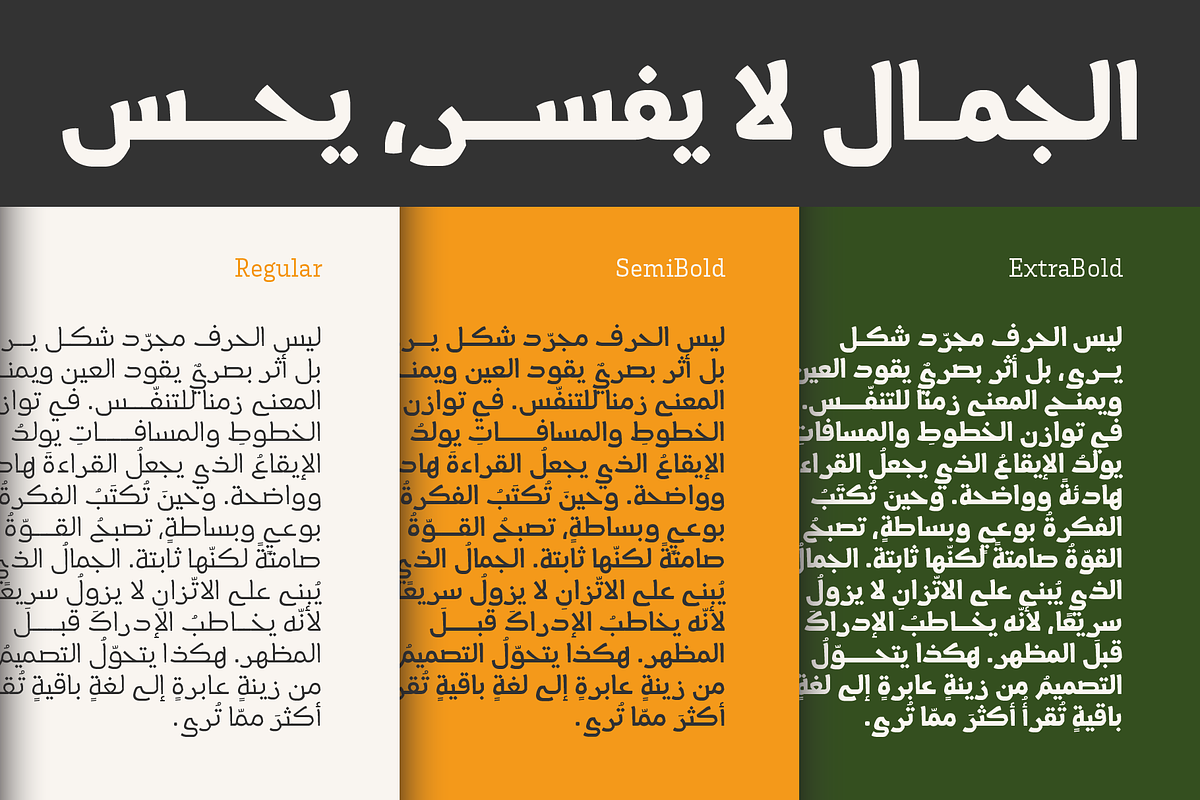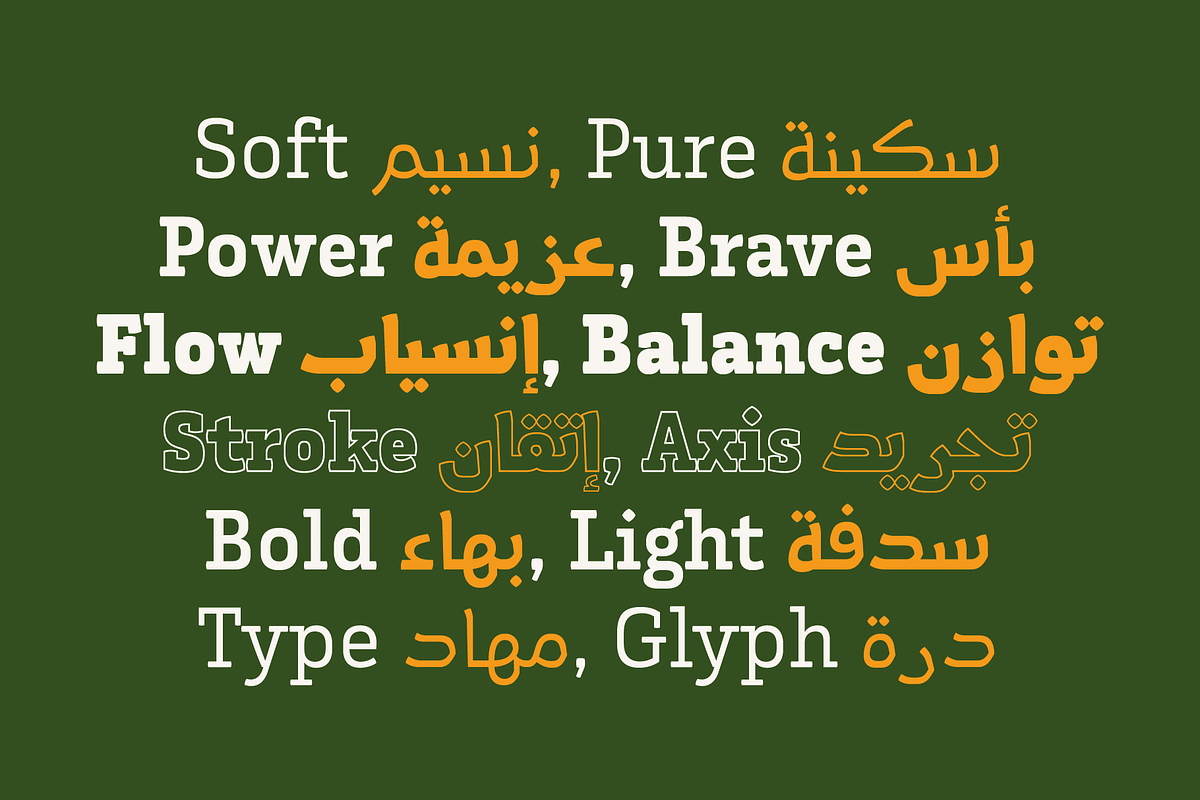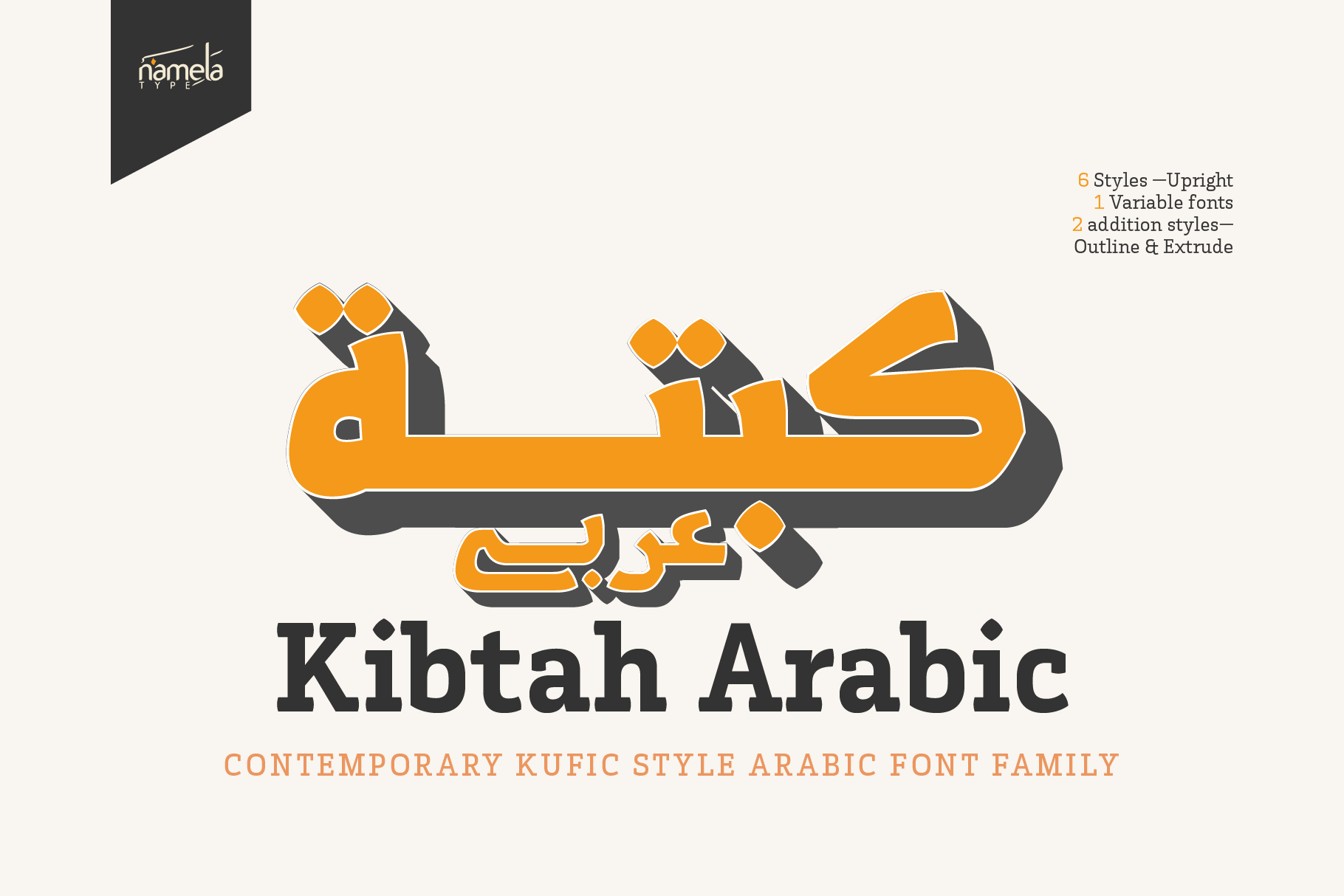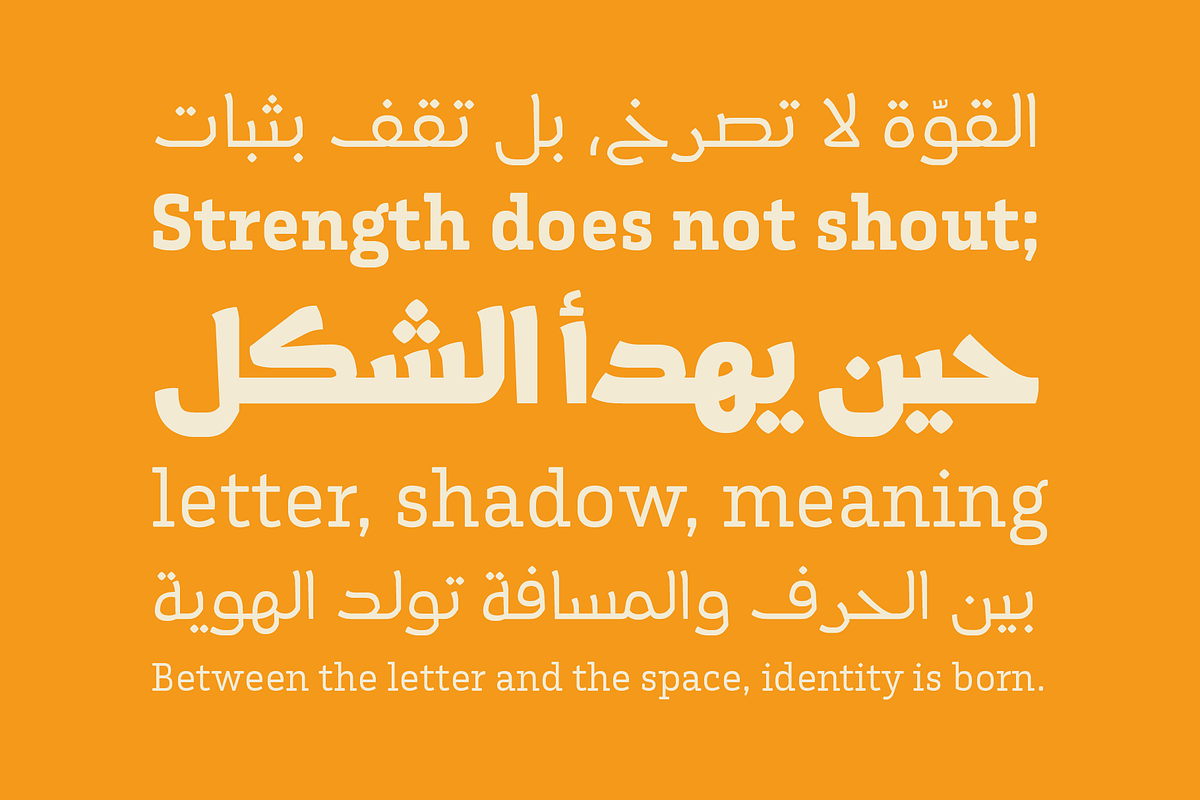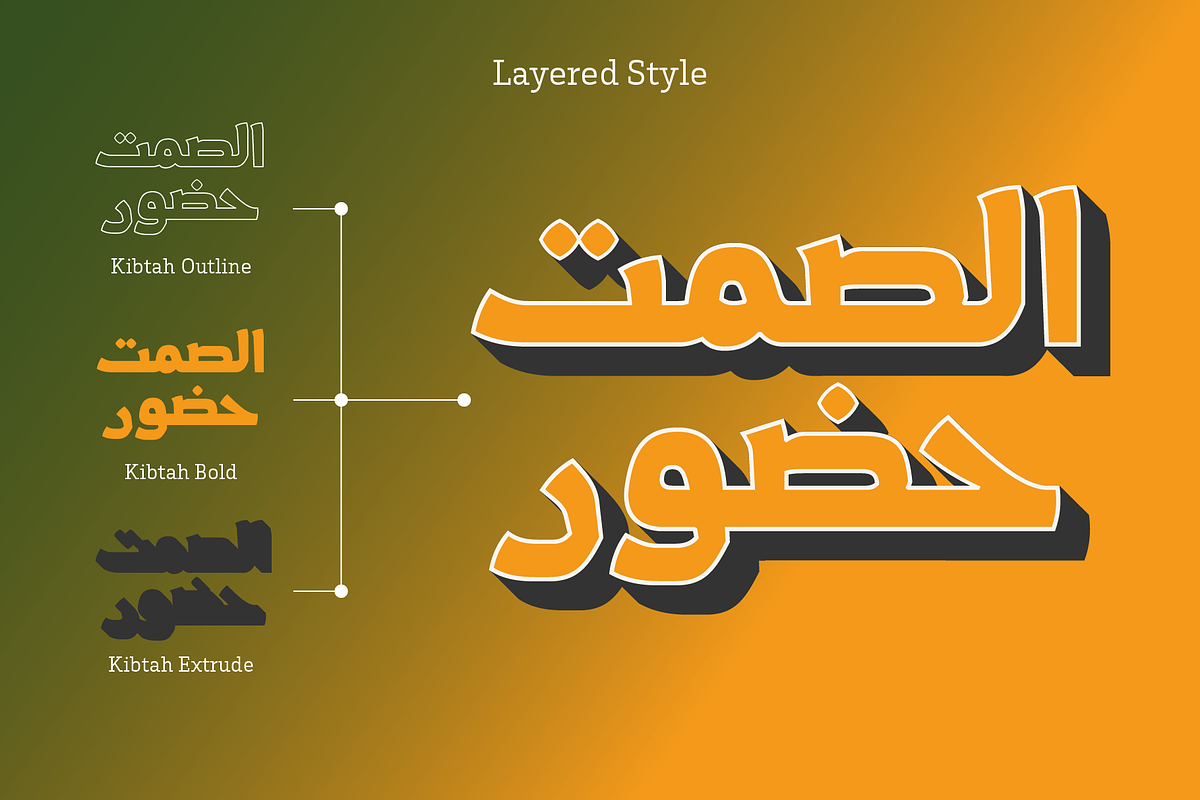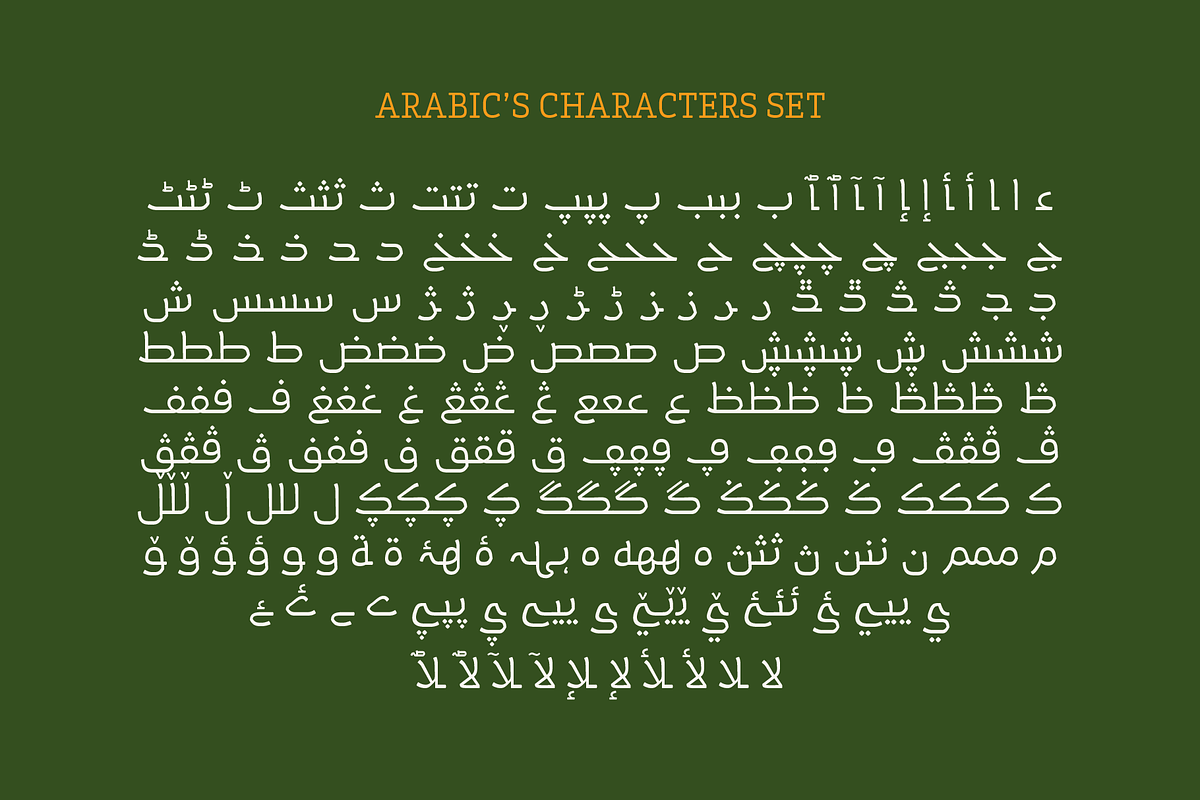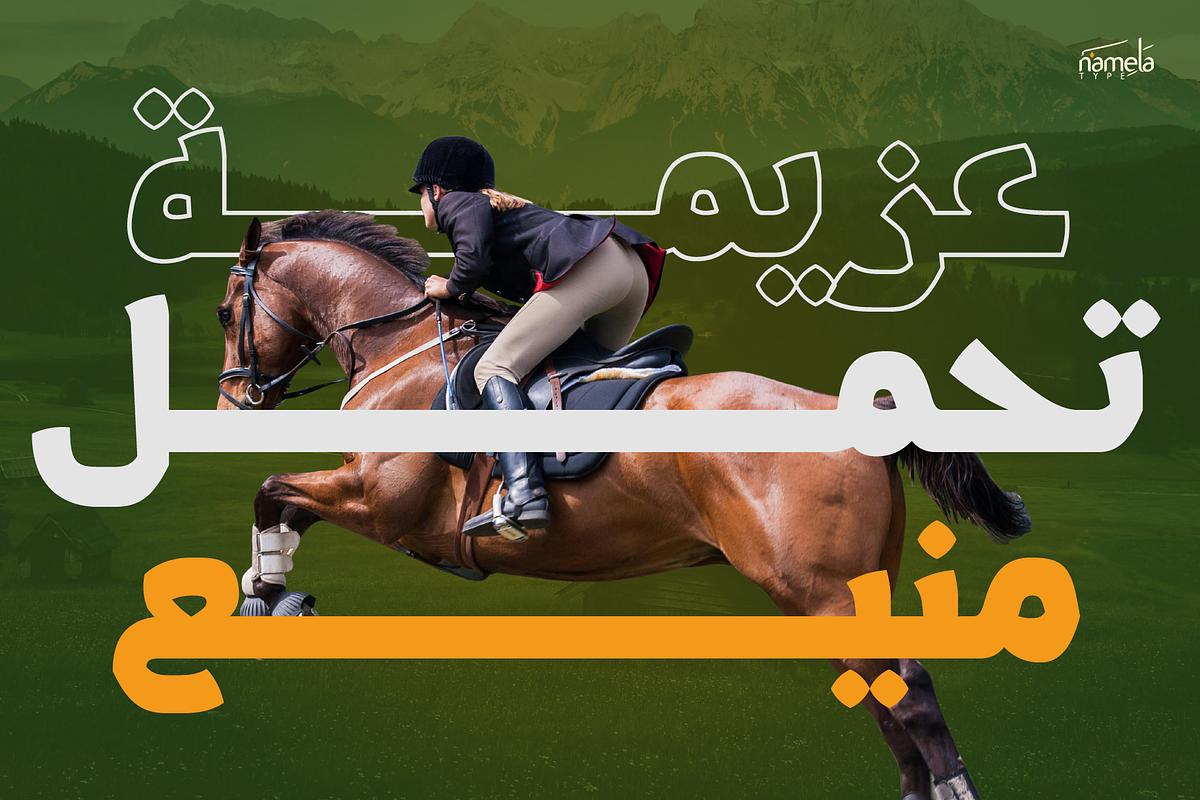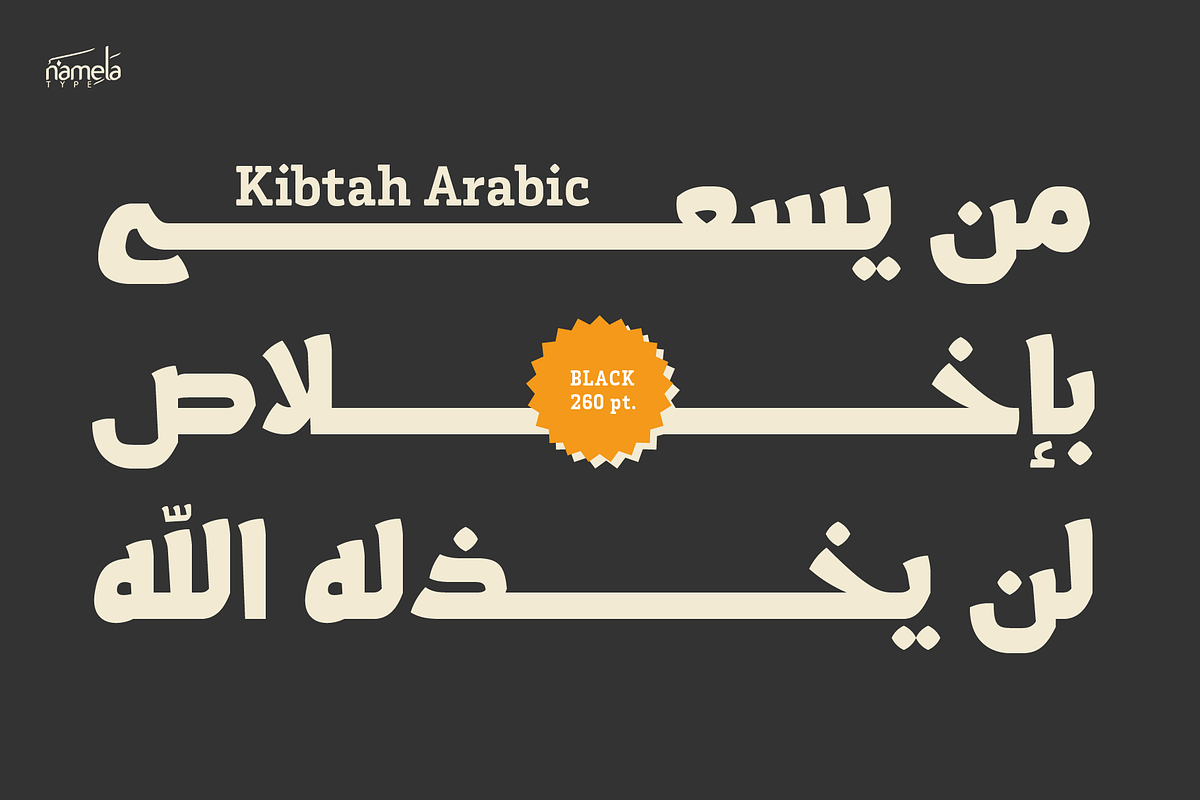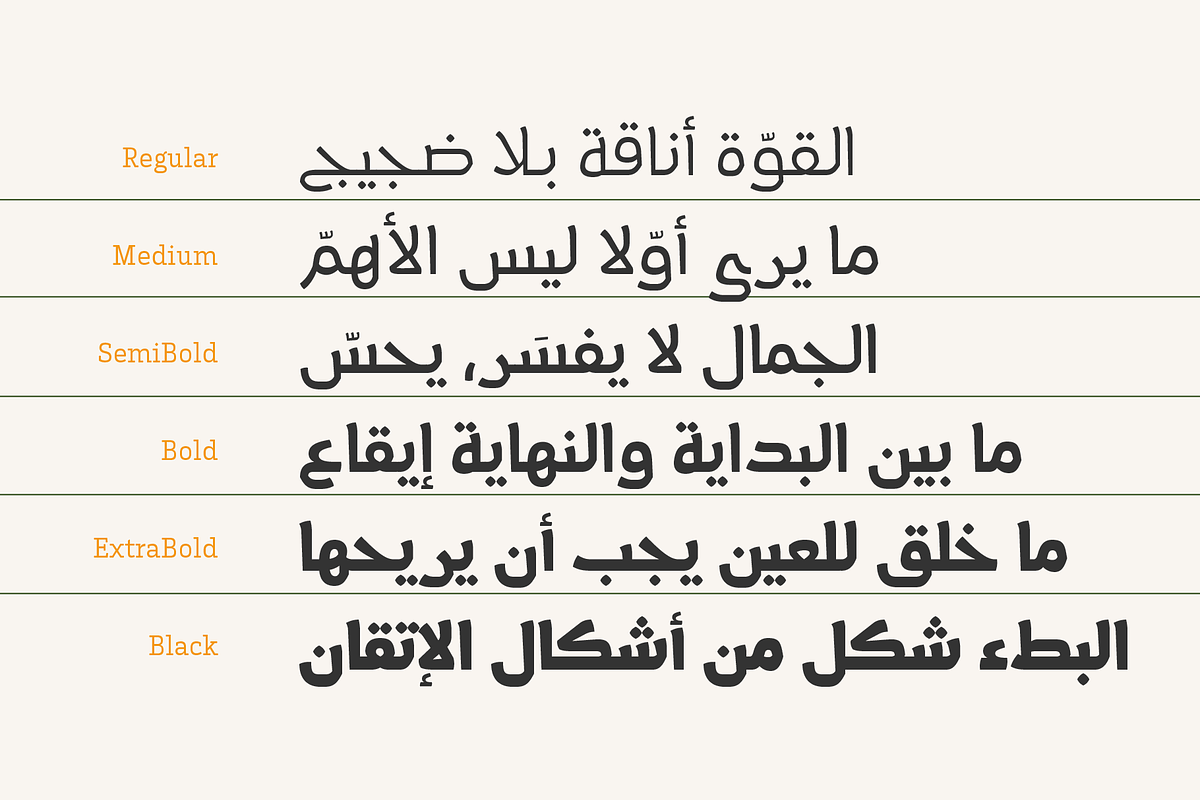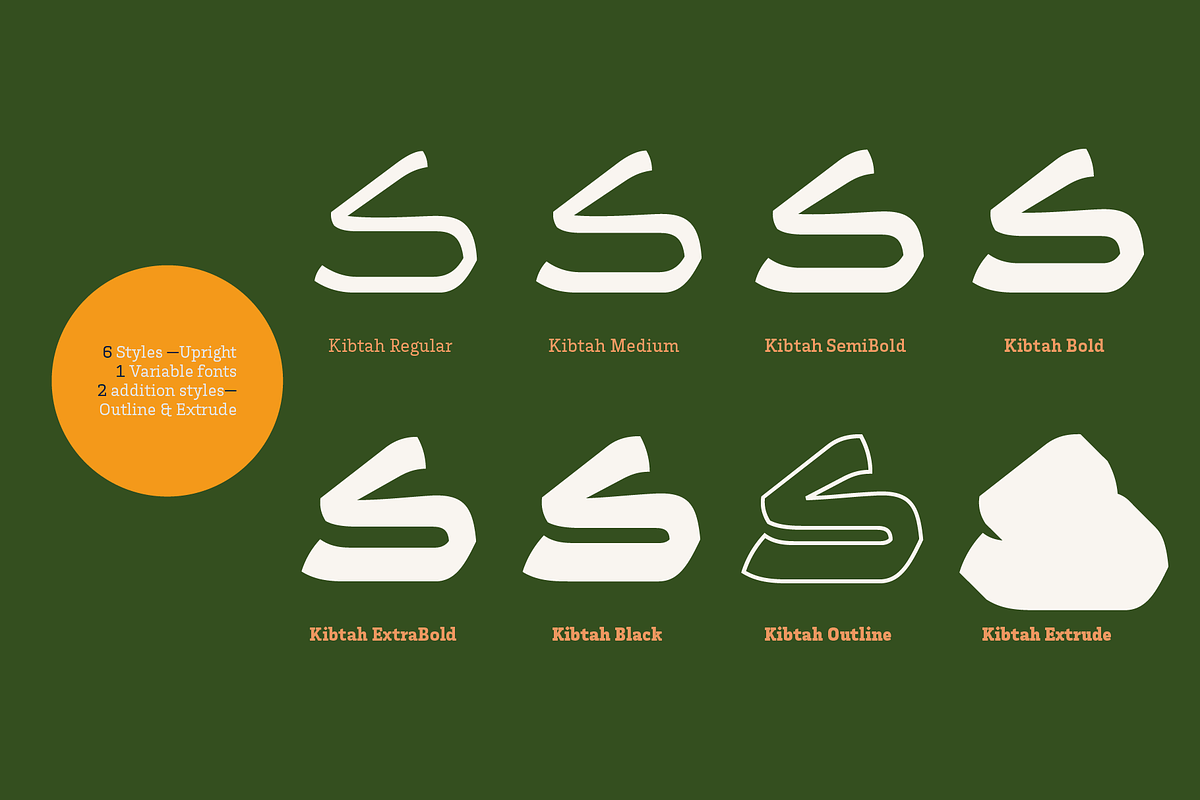
Kibtah Arabic, Modern Kufic Font
Kibtah Arabic is a bold Arabic display typeface inspired by the structural clarity of Kufic script, refined through a simplified and contemporary approach. Designed with firm geometry and confident proportions, Kibtah Arabic delivers a strong visual voice for modern Arabic typography across headlines, branding, posters, editorial titles, and expressive visual systems.
In latin Character, Kibtah is constructed around a monolinear slab serif structure, featuring consistent stroke weight and robust block-like serifs. The serifs are firm yet subtly softened at the corners, creating a controlled balance between mechanical strength and visual refinement.
Kibtah Arabic is developed as a compact yet powerful font family, offering flexibility while maintaining a cohesive visual identity. 6 Weight Styles, Ranging from Regular to Black, the weight spectrum allows smooth typographic hierarchy and contrast control while preserving the Kufic structure across all styles. 1 Variable Font— continuous interpolation from Regular to Black for fluid design adjustments. 2 Additional Display Styles Designed to expand expressive possibilities: Outline — ideal for layered compositions and editorial graphics, Extrude — adds dimensional depth for bold headlines and poster design.